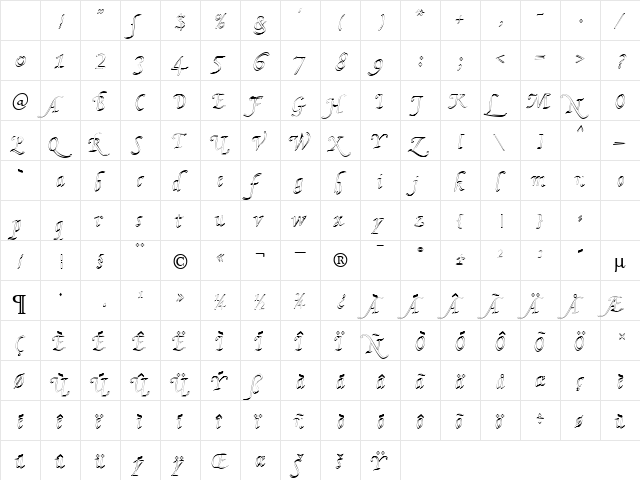
Complete KL HKursive2 OL DB Normal glyph index. Displaying only characters natively supported by KL HKursive2 OL DB Normal font.
KL HKursive2 OL DB is a composed and adaptable typeface that performs quietly and consistently across a wide range of design contexts. The slanted form adds forward momentum and visual energy.
Pro Tip: Use KL HKursive2 OL DB for emphasis, pull quotes, and subheadings where its slanted energy can add rhythm to the layout.